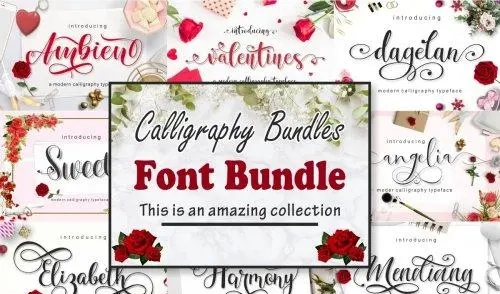
Elevate your design projects with our exquisite Calligraphy Font Bundles. Perfect for adding a touch of elegance and sophistication, these fonts are ideal for various applications including branding, logos, invitations, and more.
- Multiple font styles ranging from classic to modern calligraphy.
- Includes various weights for versatile design options.
- Easy to read and aesthetically pleasing, suitable for both print and digital media.
- Designed for seamless integration into your projects.
- Utilize these fonts for wedding invitations, greeting cards, and personal branding.
- Combine different weights for a unique typography experience.